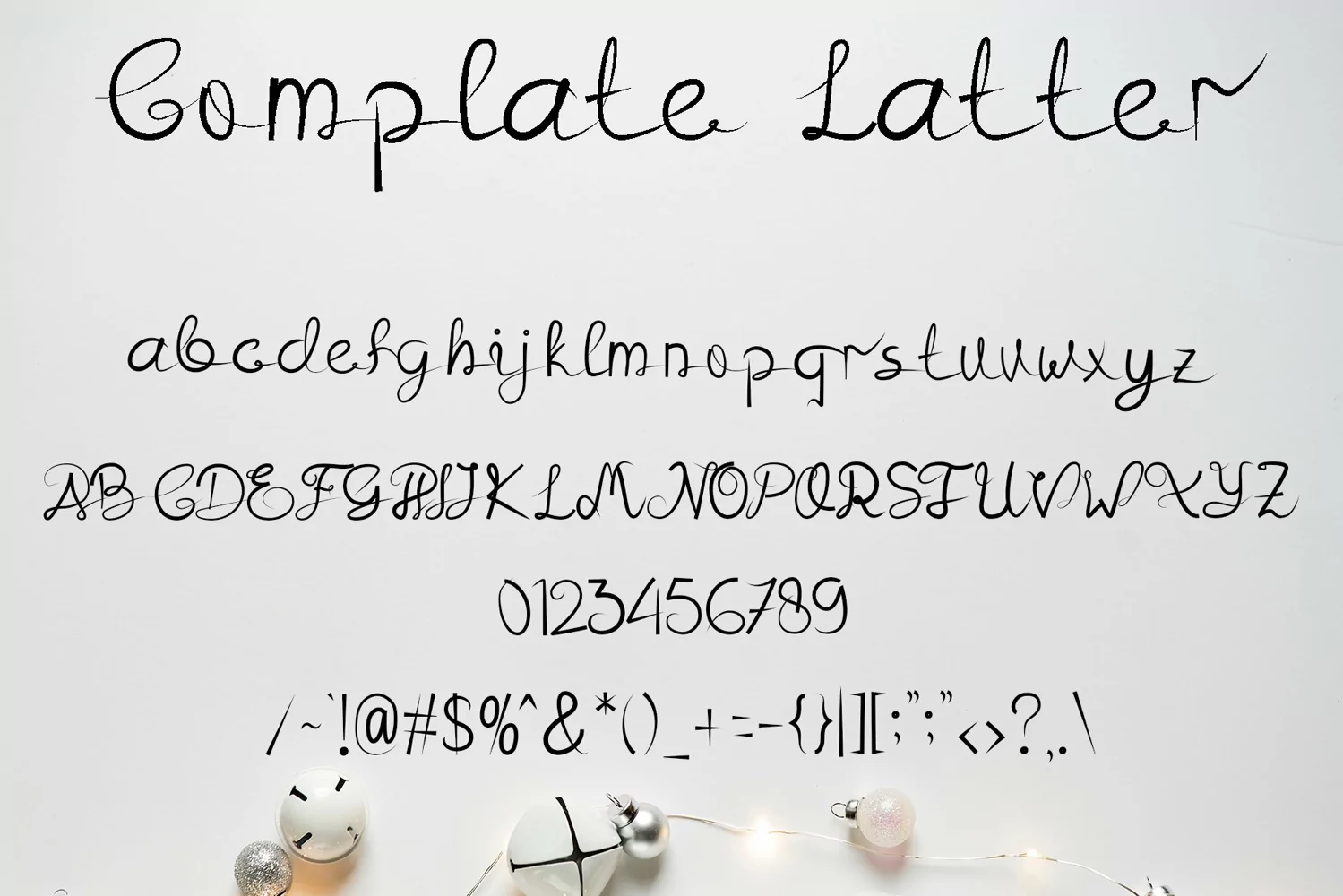
Introducing, this is our newest product, we call this product Jersey,
It looks amazing with sweet touches and beautiful curves in each letter. Jersey fonts are perfect for: wedding invitations, fashion magazines, logos, signatures, photography, watermarks, wall displays, social media,